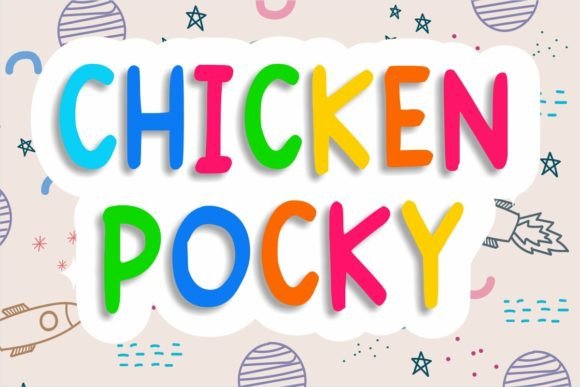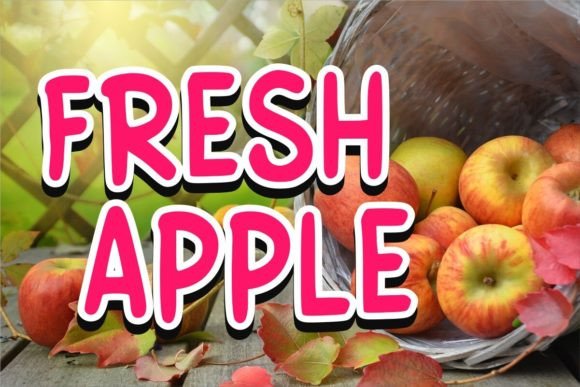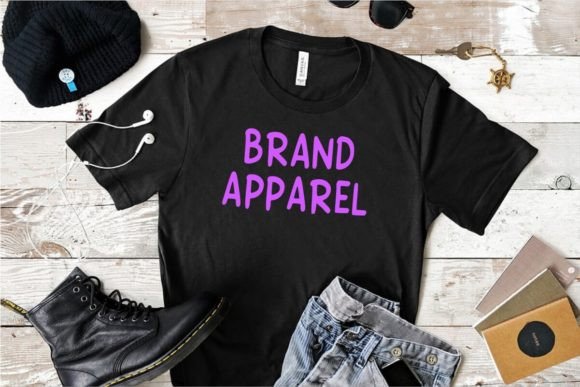
Introduction to Chicken Pocky Font
Do you remember that moment when you finally landed on the perfect font for your design project? It’s like finding a treasure trove of creativity, isn’t it? For designers, it’s a thrill to discover a font that not only matches their vision but also elevates their project to the next level. And, today, we’re excited to introduce you to a font that’s sure to make your creative projects extraordinary – the Chicken Pocky Font!
As a valuable design resource, the Chicken Pocky Font is a free download that offers a high-quality, playful, and fun display font perfect for kids’ projects. Whether you’re creating shirts, stickers, covers of books, or social media shipments, this font is sure to bring a smile to your audience’s faces. With its transparent background, you can easily combine it with other design elements to create a stunning visual effect.
Key Features of Chicken Pocky Font
- High-quality, hand-drawn design for a unique and creative project
Honest Review: Chicken Pocky Font
As a designer, I’m always on the lookout for unique and high-quality design resources to elevate my creative projects. The Chicken Pocky Font is a delightful addition to any design arsenal.
What works well is its playful and whimsical feel, reminiscent of Japanese-inspired snacks, which makes it perfect for branding or packaging design. The font is highly customizable, allowing designers to experiment with different color schemes and layouts. ✨
The font itself is a high-quality, vector-based design, which means it can be scaled up or down without any loss of quality. The transparent background option also makes it easy to integrate with any design project.
- High-quality, vector-based design
- Playful and whimsical feel
- Customizable color schemes and layouts
However, one limitation is that the font is not suitable for formal or professional projects, as its playful nature may not be taken seriously. ⚠️
Overall, I’m impressed with the Chicken Pocky Font, and I would recommend it for designers looking for a fun and creative design resource. It’s available for free download, making it an excellent addition to any design library.
The Chicken Pocky Font is a unique and creative design resource that can add a playful touch to your projects. This font is available for free download and is ideal for various creative projects, such as logos, posters, and social media graphics.